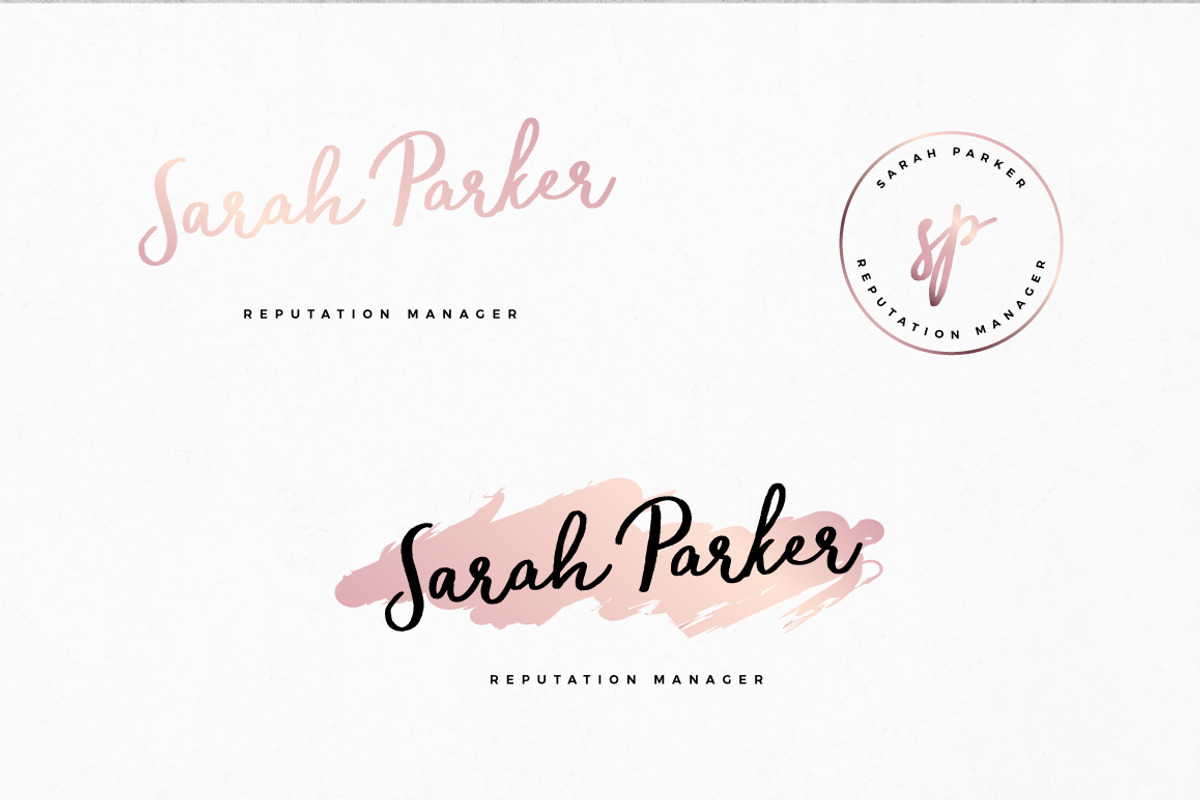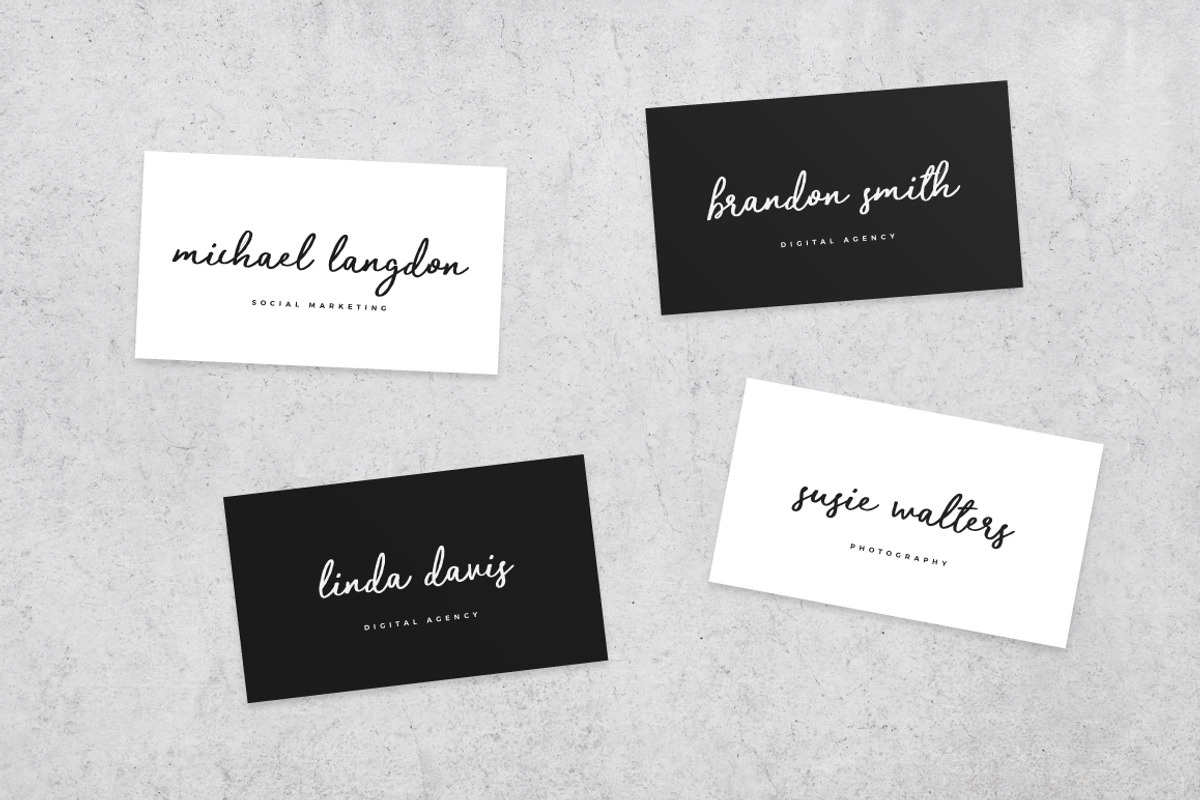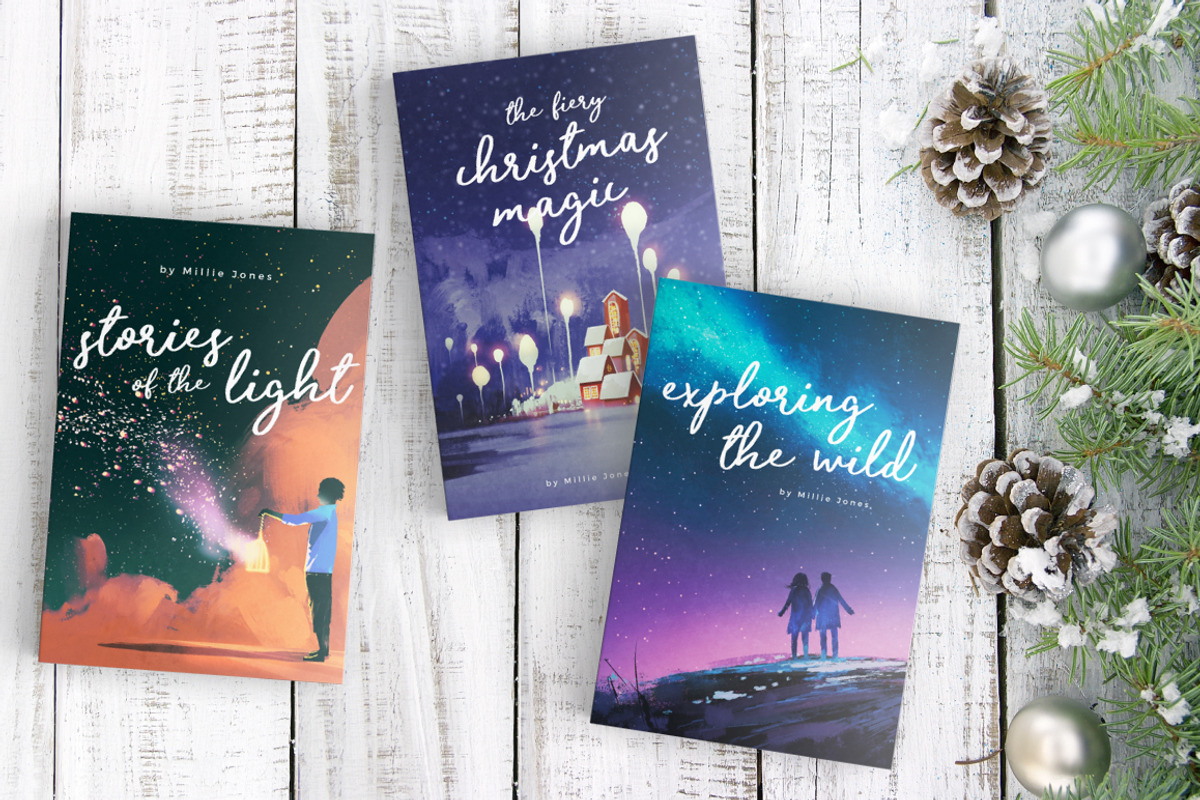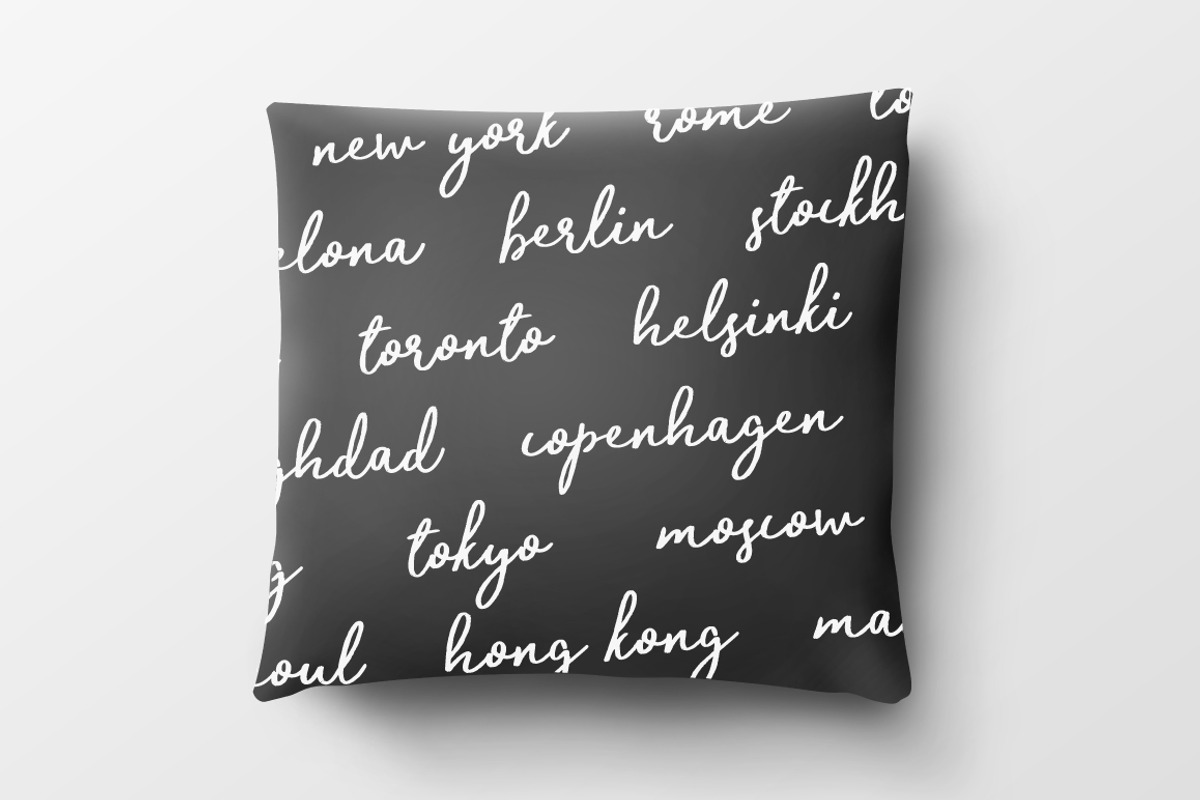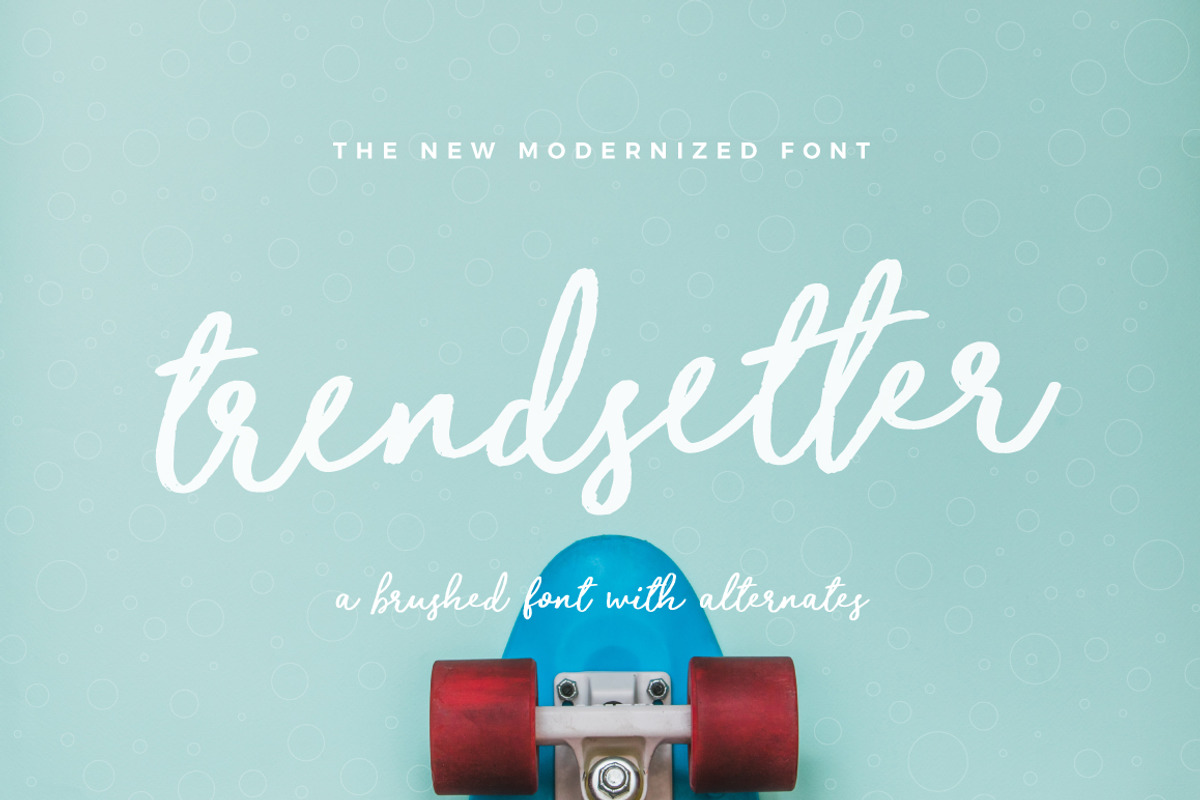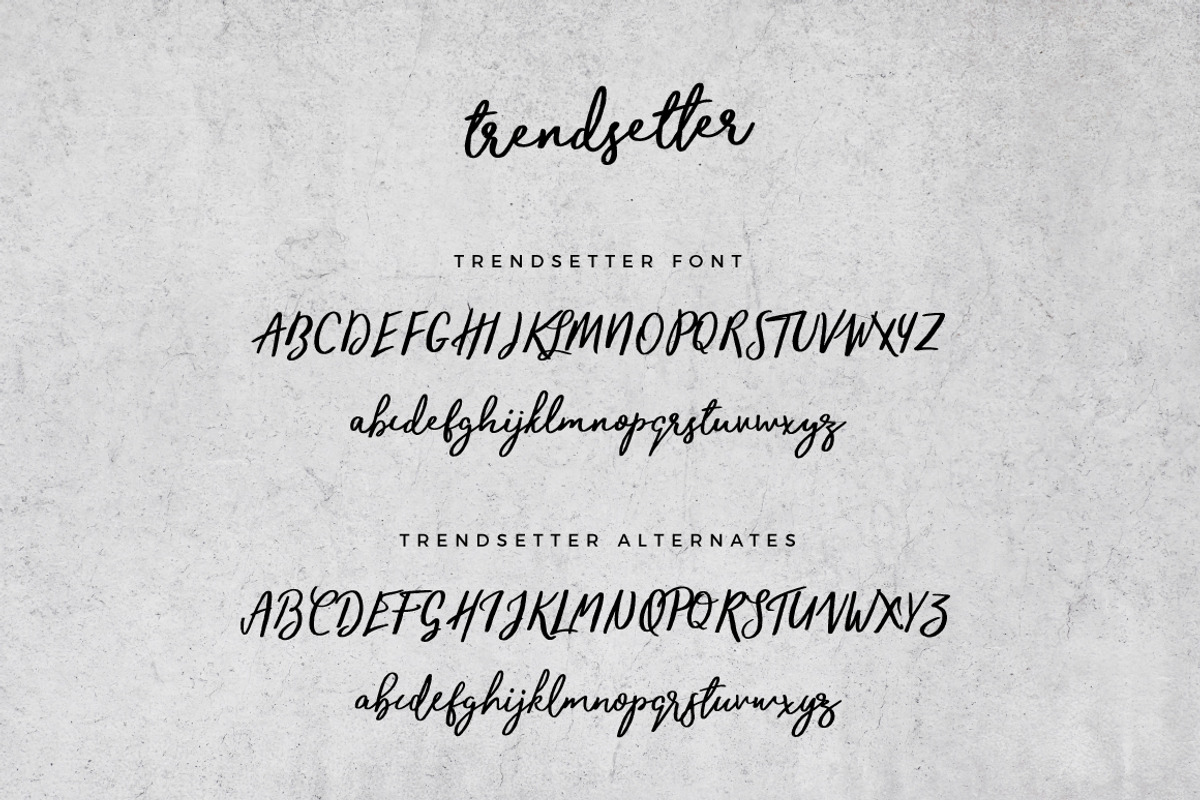
Trendsetter Font
Trendsetter Font by Mats-Peter Forss is a font selected for branding, posters, packaging, typography.
- The end result is smooth all the way, and thealternate characters truly gives it that extra punch to make it more personal in whatever desig
- Trendsetter- Upper and lowercase characters, numerals, punctuations and a wide language support.
- Extra ligatures for more complex letter-combinations like tt and ll.
- Trendsetter Alternates - Full alternates for upper and lowercase characters to make your design look more awesome!!
Why Trendsetter Font is worth a look
Trendsetter Font by Mats-Peter Forss fits naturally into Branding, posters, packaging, typography.